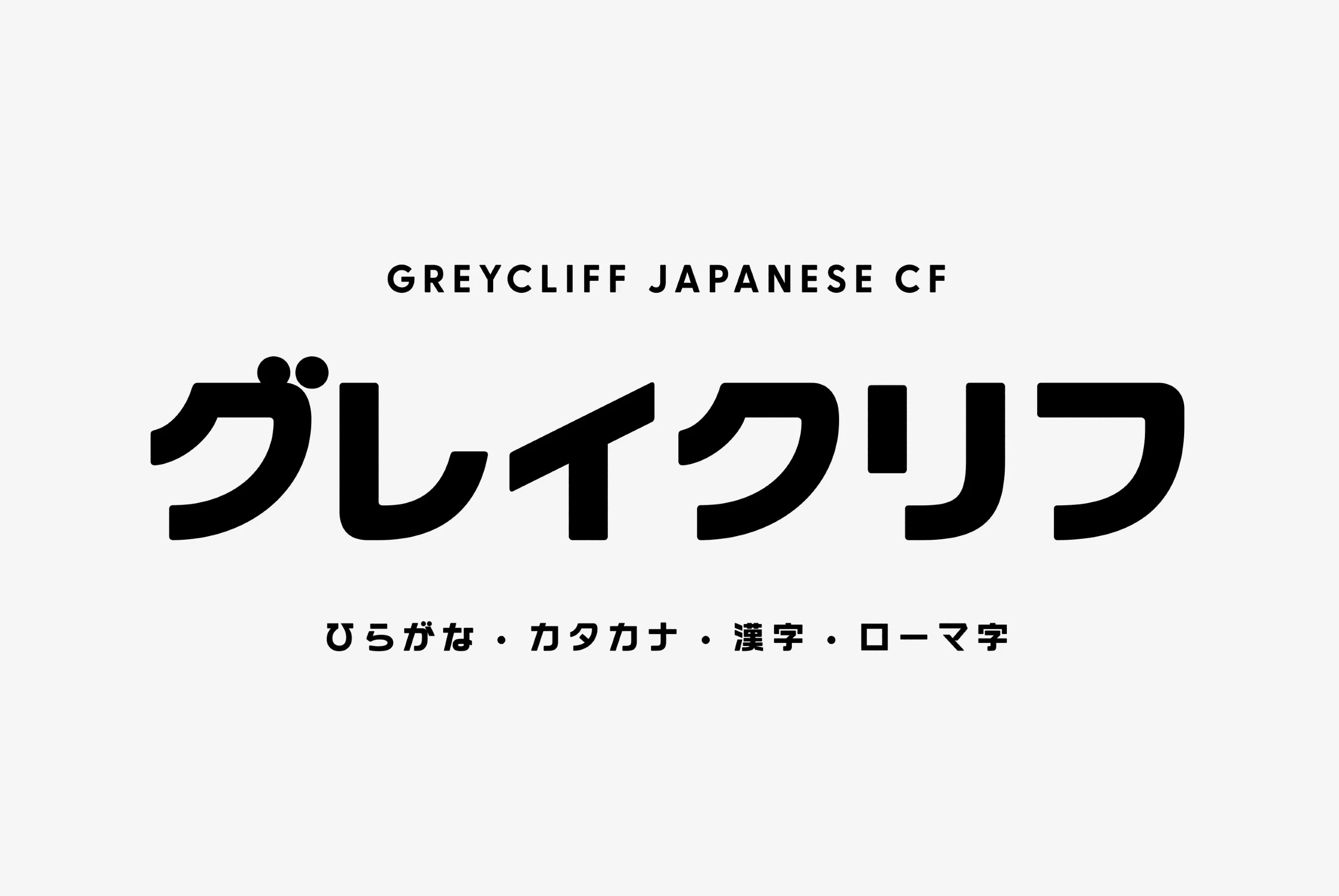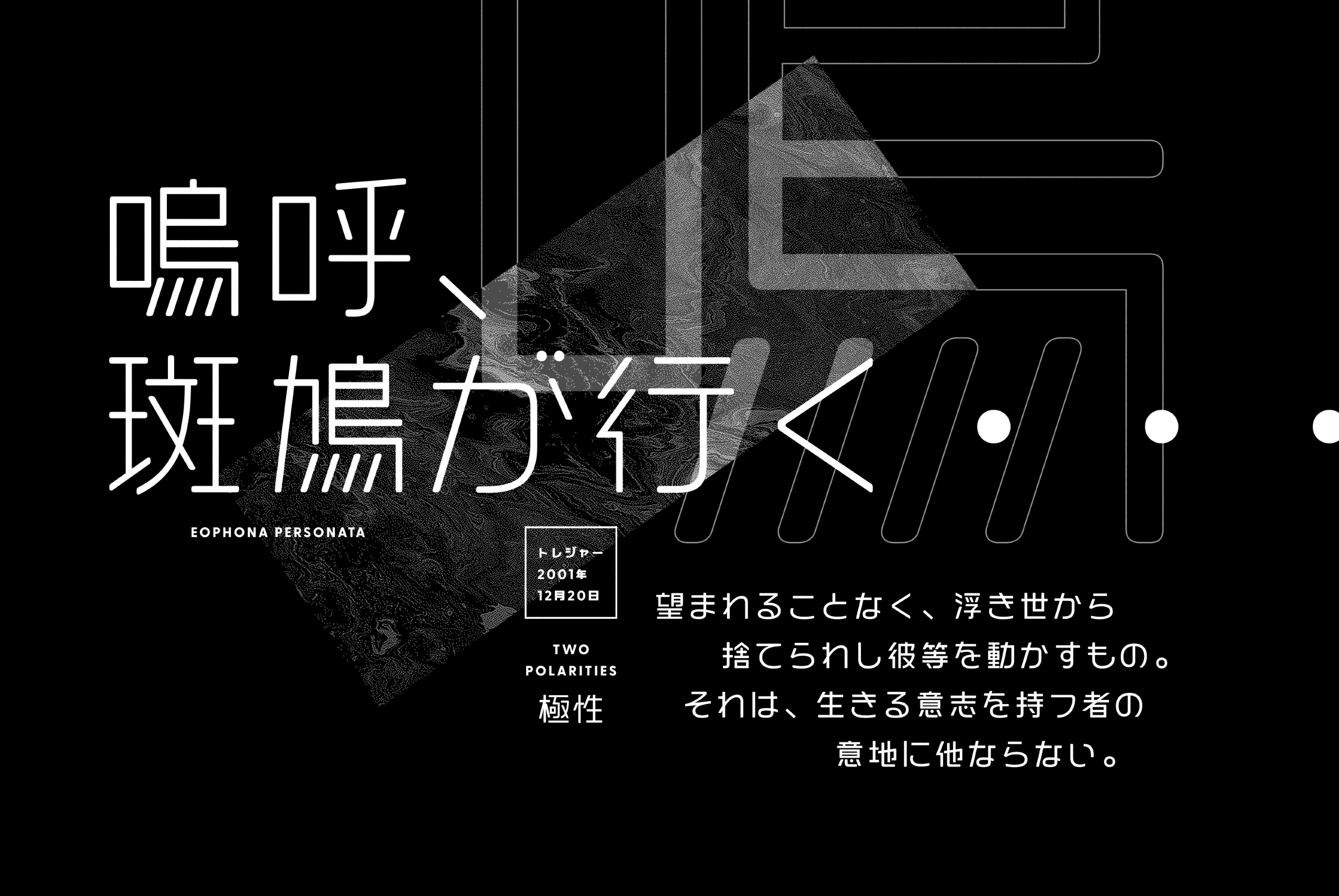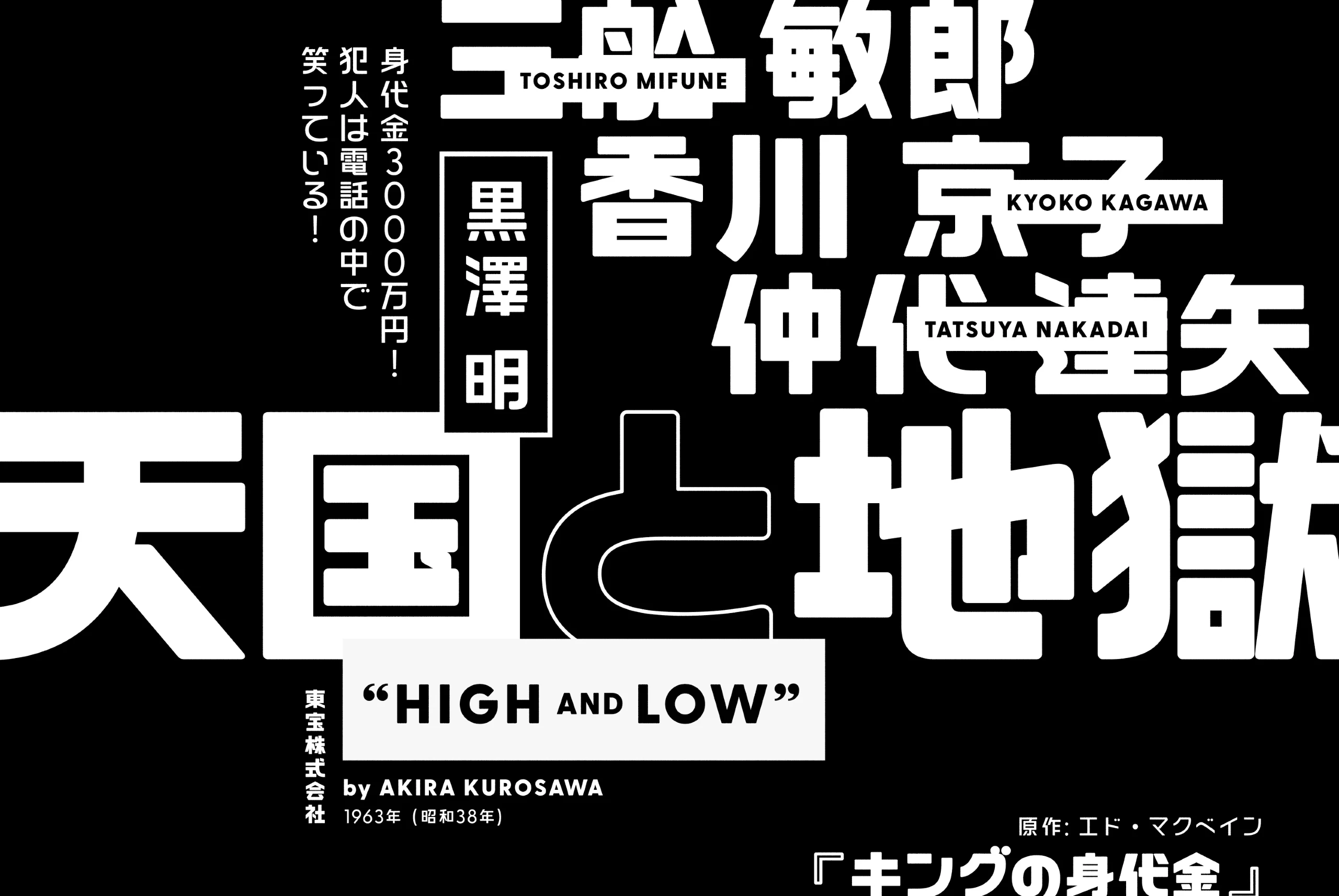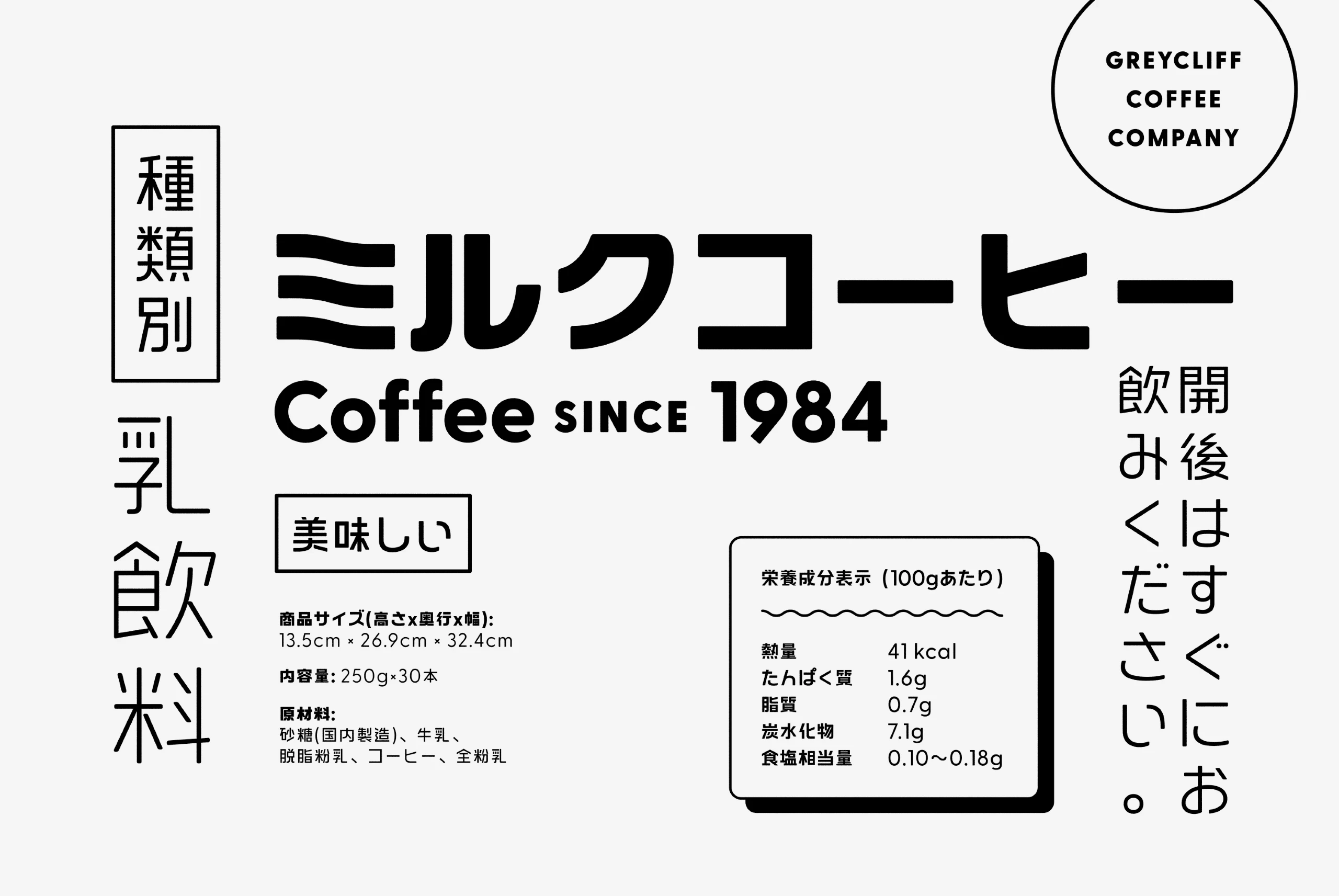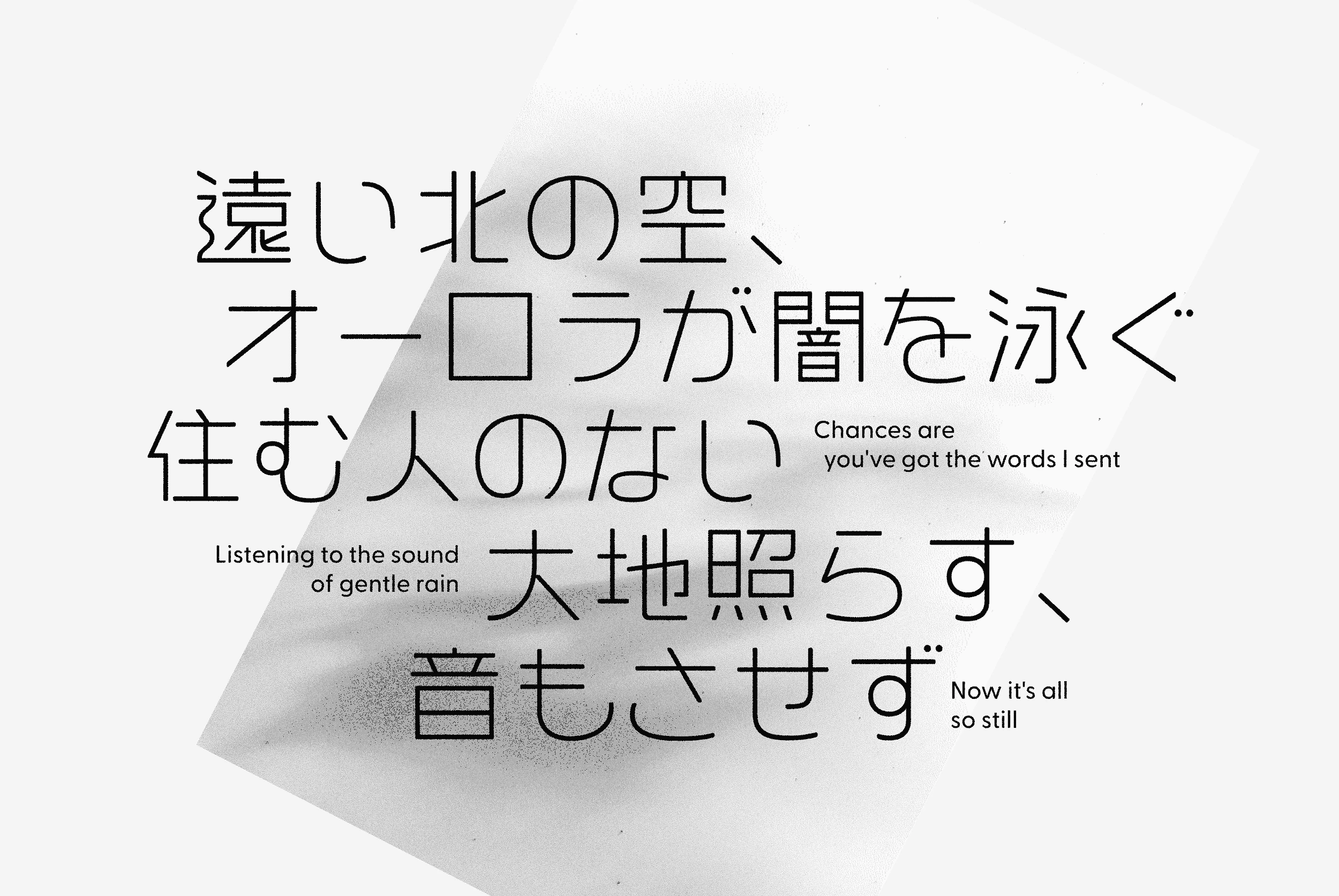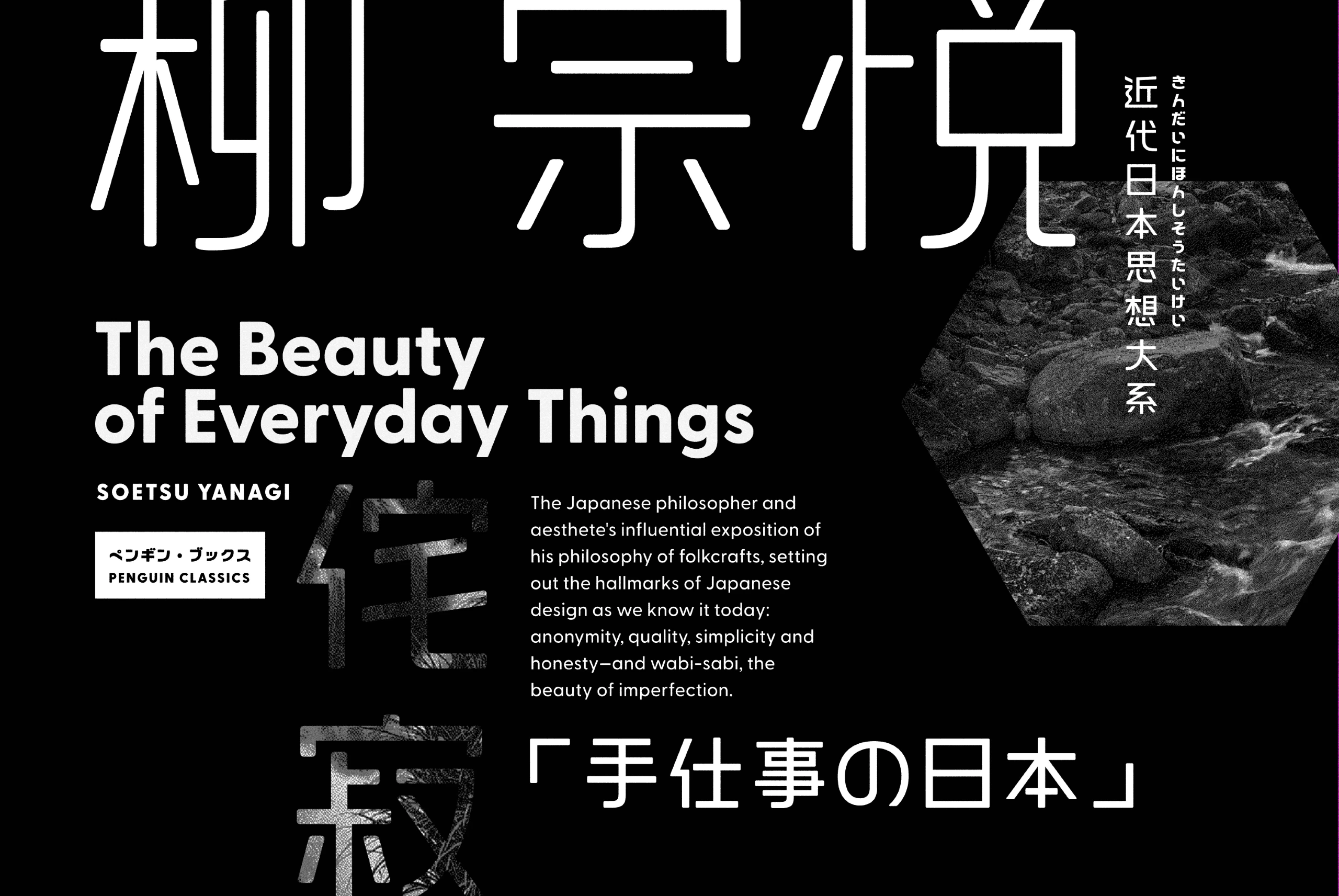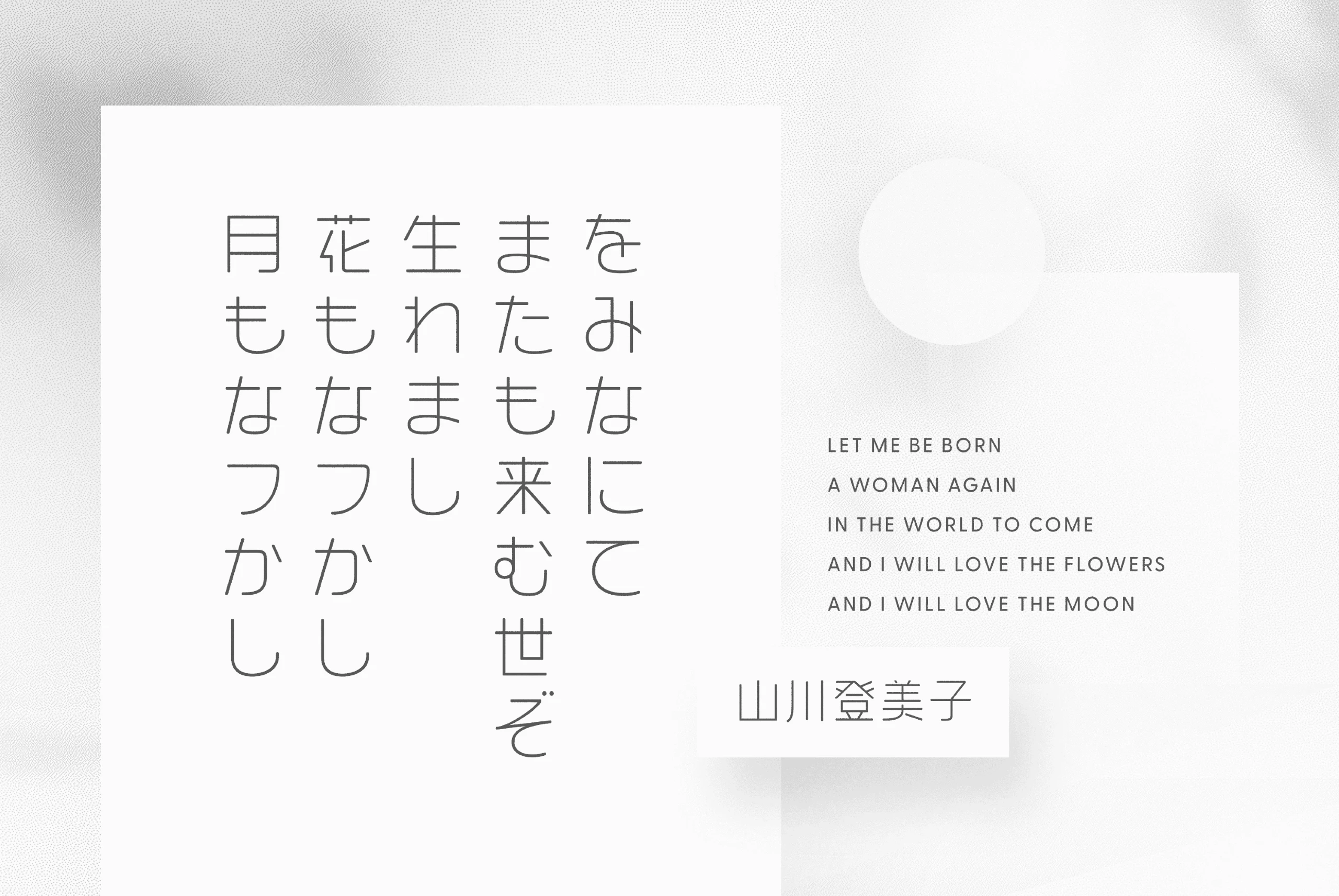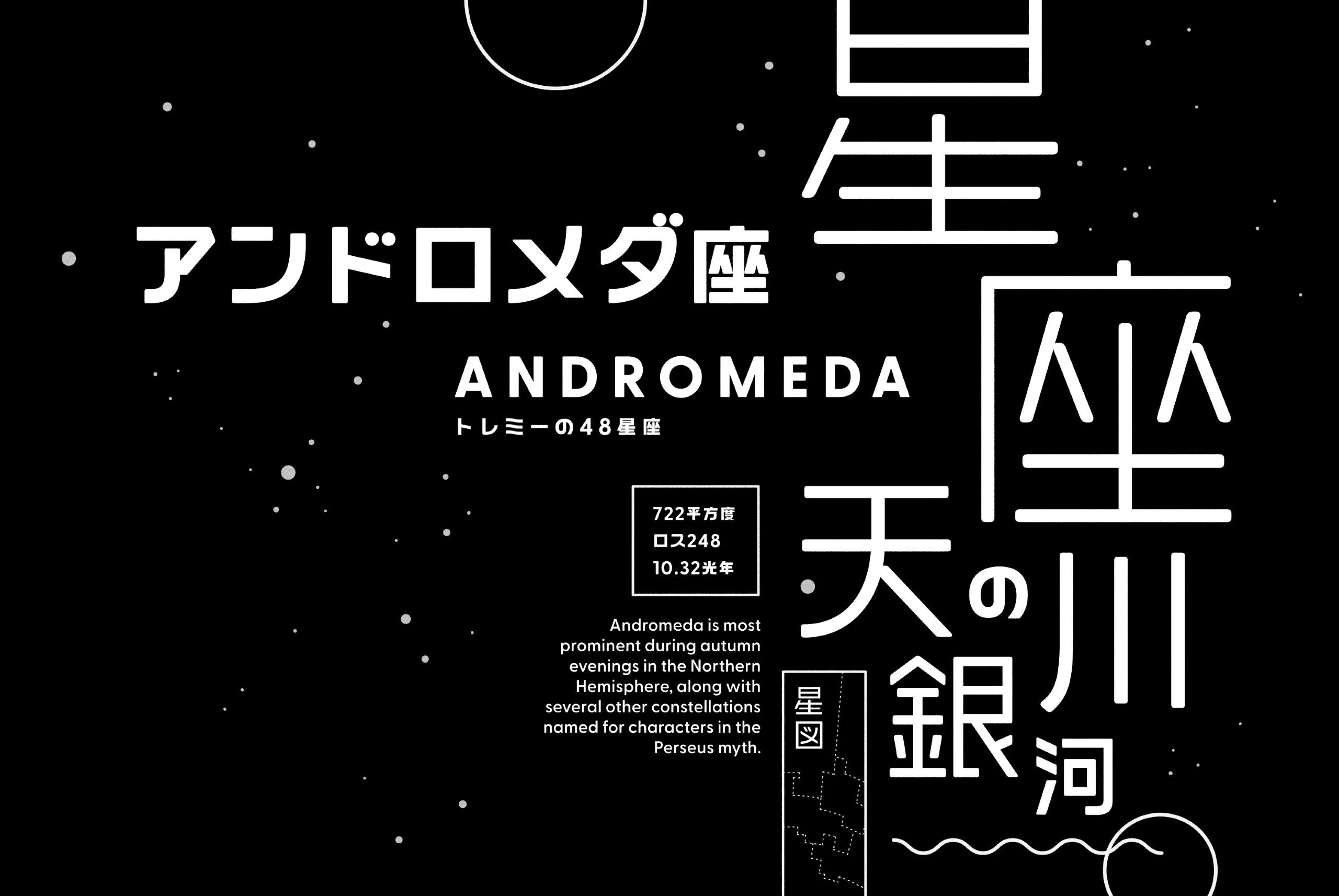
Greycliff Japanese
Greycliff Japanese CF is a Japanese-script adaptation of the original Greycliff CF sans serif typeface. The warm, geometric design includes full suite of 9 weights for beautiful dual-language applications. All 2800+ glyphs – covering hiragana, katakana, kanji, and romaji – were hand-drawn with a careful eye for detail. Future updates will add further kanji, including rare name and geographic glyphs.
nine Weights in Latin & Japanese Script